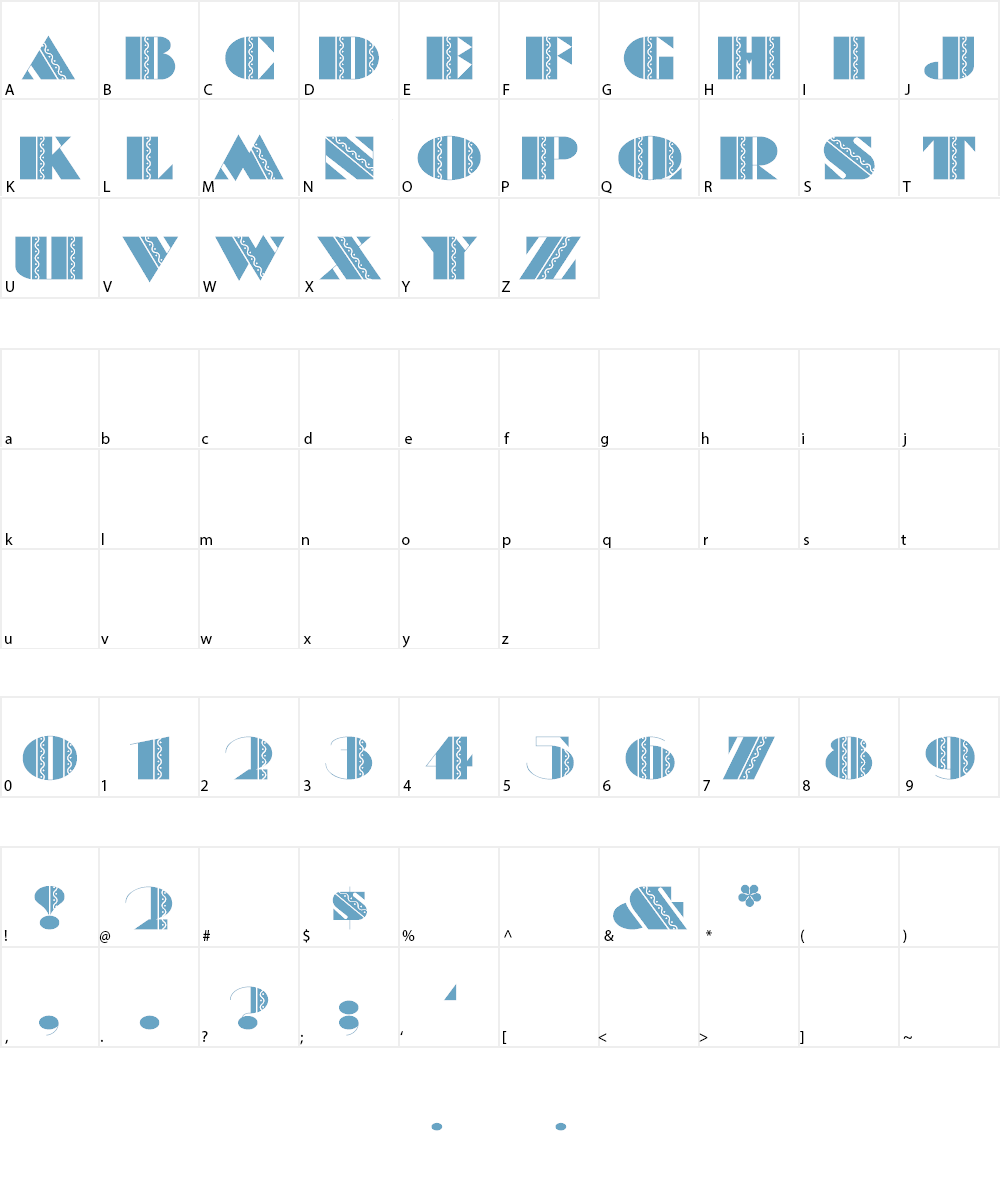
Party time! Here’s a festive font — best used sparingly and in large point sizes — to dress up any occasion. Based on a font originally called les Filets (Thin Threads) from l’Atelier Plumereau, this incarnation gets its name from a play on words combining the French terms for “party” and “a done deal.”